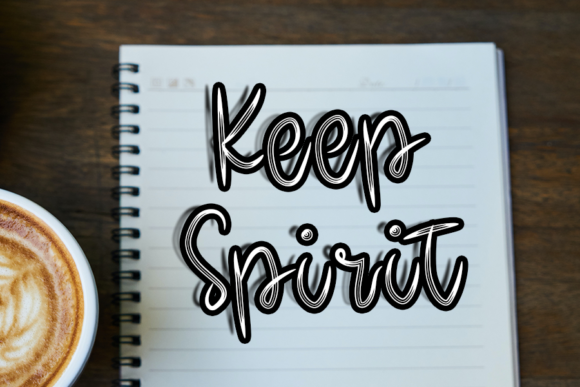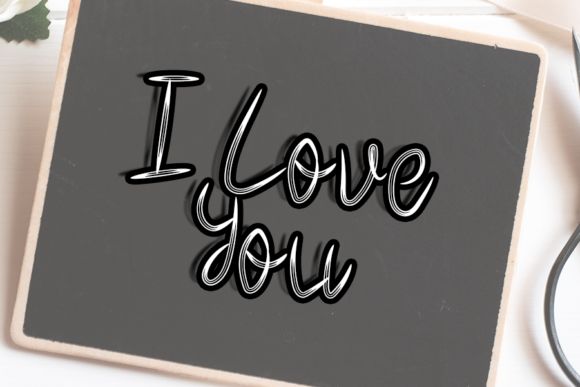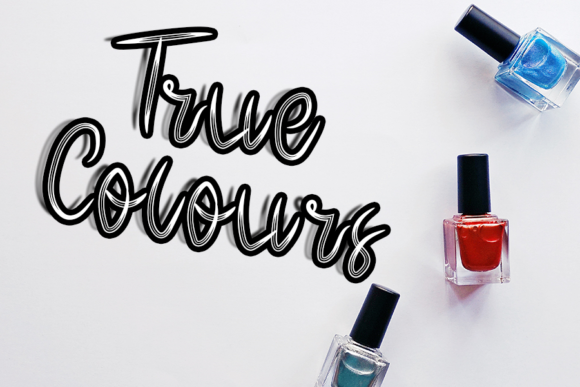
The Sweetest Font for Your Creative Projects: A Deep Dive into Choco Love
I’ll never forget the moment I stumbled upon the perfect font for a whimsical kids’ party invitation I was designing. I had tried countless fonts, but none seemed to capture the playful, carefree spirit I was looking for. That was until I discovered Choco Love, a fun brush-style handwritten font that instantly brought my design to life. If you’re a designer, crafter, or creative hobbyist looking for a font that exudes childlike playfulness, you’re in the right place!
An Honest Review of Choco Love
What I Love About Choco Love
- ✨ Playful and Whimsical: Choco Love has a unique, hand-brushed feel that’s perfect for kids’ projects, school materials, and any design that needs a touch of playfulness.
- ✅ Ease of Use: This font is incredibly easy to work with, even for those who are new to using OpenType features and glyphs.
- 💕 Emotional Connection: Choco Love has a way of evoking a sense of nostalgia and warmth, making it perfect for designs that require a personal touch.
While Choco Love is an amazing font, there are a few things to keep in mind:
- 🤔 Limited Use in Formal Designs: Due to its playful nature, Choco Love might not be the best fit for formal or professional designs.
- ⚠️ Legibility at Small Sizes: Like many script fonts, Choco Love can be a bit tricky to read at very small sizes.
The Backstory Behind Choco Love
Choco Love was designed with the intention of capturing the whimsical spirit of childhood. The designer, inspired by the joy of creating art and writing letters, aimed to create a font that would bring a smile to people’s faces. With its playful, hand-brushed feel, Choco Love is sure to evoke memories of childhood wonder and excitement.
| Font Name | Choco Love Font |
| Author | merge354 |
Q: What type of projects is Choco Love best suited for?
A: Choco Love is perfect for kids’ projects, school materials, party invitations, and any design that requires a playful, whimsical touch.
Q: Is Choco Love available in different languages?
A: Choco Love may not have extensive language support, but it does include a range of characters and glyphs to help you create beautiful text.
Q: Can I use Choco Love with other fonts in a single design?
A: Absolutely! Choco Love pairs well with a variety of fonts, so feel free to experiment with different combinations to find the perfect look for your design.